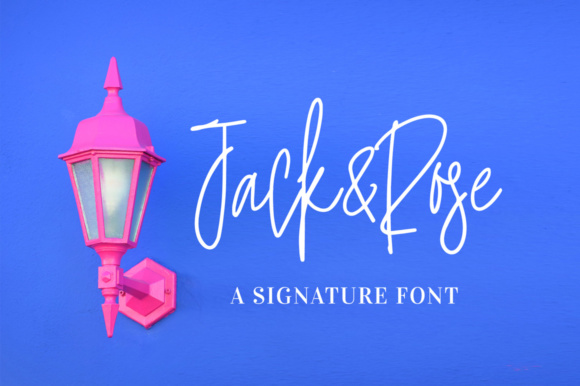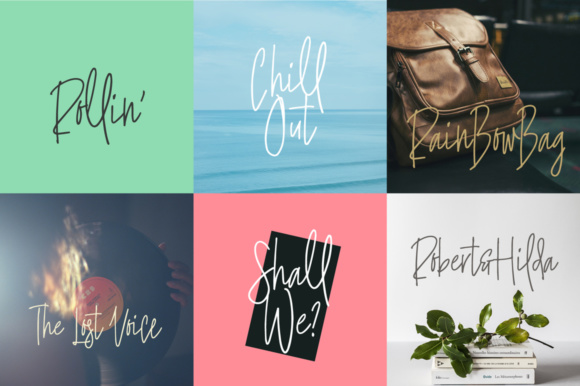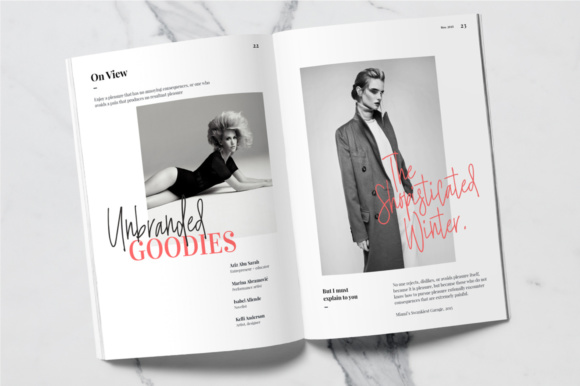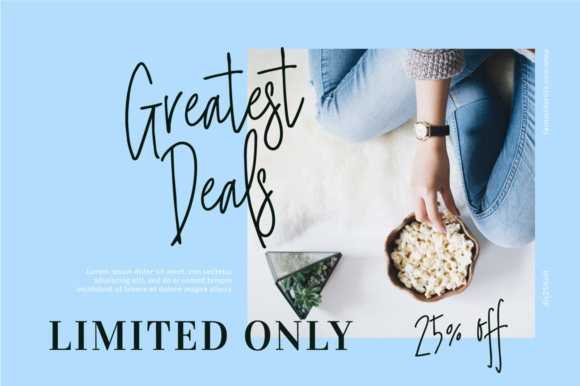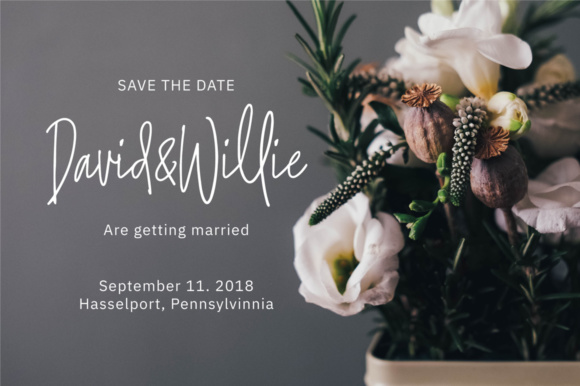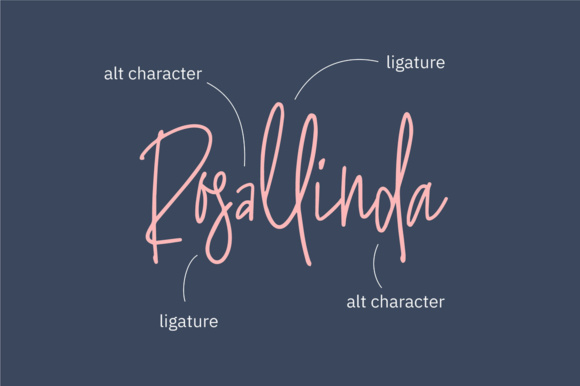
Jack and Rose Font
About Jack and Rose Font
Boost your design by giving a super personal touch to it with Jack and Rose, a natural handwritten script font. It can be used for various purposes such as wedding invitations, greeting card designs, logotype, branding, fashion magazines, brochures, and much more!